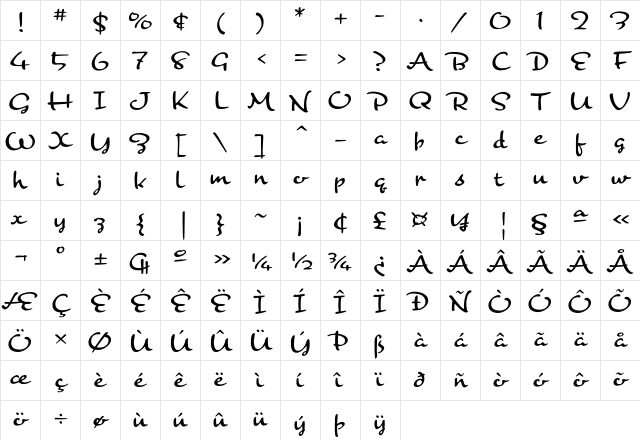
Banana is a composed and adaptable typeface that performs quietly and consistently across a wide range of design contexts.
Who designed the Banana Regular font?
This font was published by by Ryoichi Tsunekawa. Check the technical specs section for copyright and designer details.